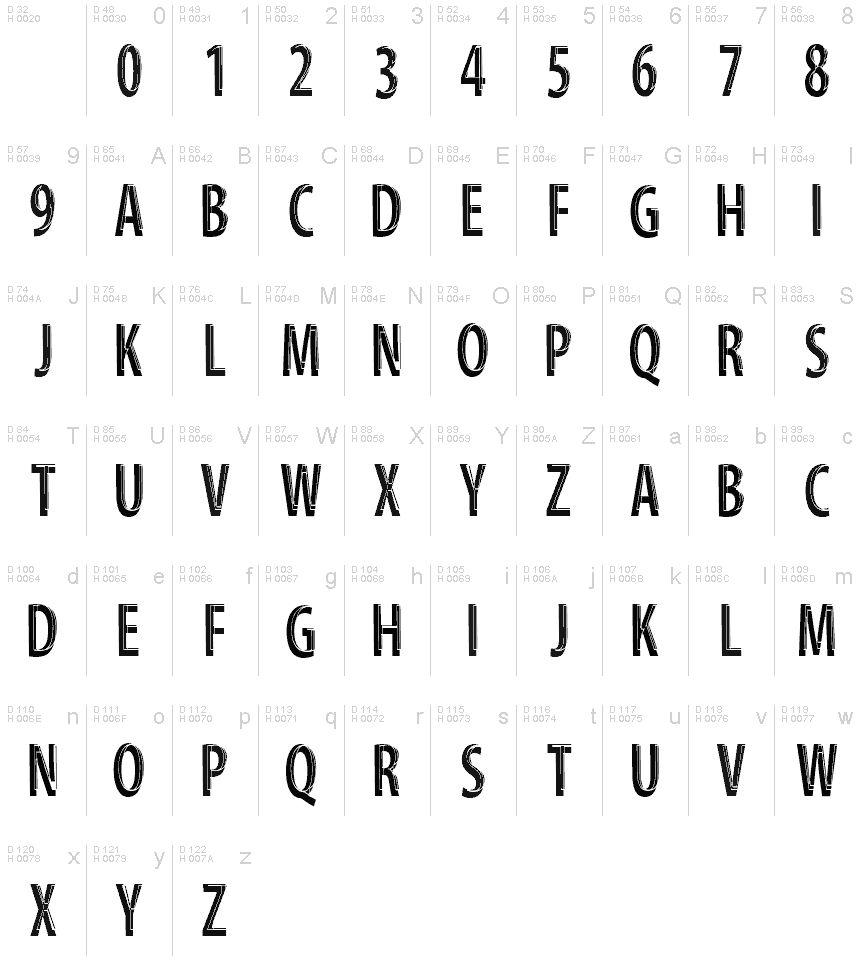
Serious Man
Serious Man emerges as a display font meticulously crafted by Iordanis Passas, embodying a semi-light weight paired with a distinctly condensed width that commands attention. Its elegant yet assertive character offers an aesthetic that balances modernity with timeless sophistication, making it an ideal choice for branding, editorial design, and impactful headlines.
The sleek contours and subtle strength of Serious Man lend themselves to creative projects where clarity is paramount yet style is never compromised. This font's versatility allows it to adapt seamlessly from bold marketing materials to minimalist art installations, ensuring that your message is not only seen but felt.